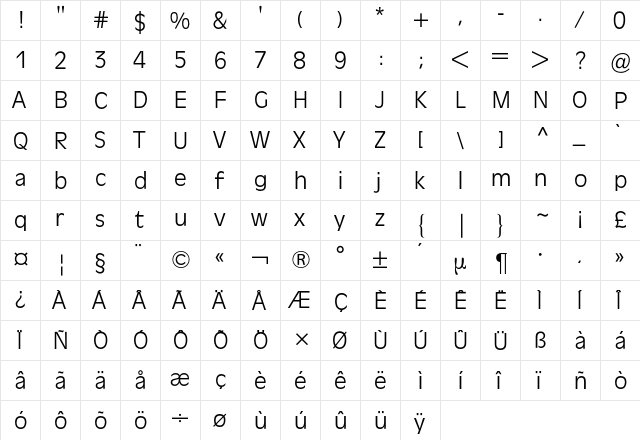
Antique Olive BQ Regular Font Preview
Antique Olive BQ Regular
Design Context for Antique Olive BQ Typeface
Antique Olive BQ wears its vintage influences proudly, with letterforms that recall mid-century signage, classic packaging, and nostalgia-driven design.
Perfect for vintage-inspired branding, retro packaging, nostalgia campaigns, and period-accurate editorial design.
Font Pairing: Combine Antique Olive BQ with a simple slab or neutral sans — period-accurate companions reinforce the vintage feel without competing for attention.
Pro Tip: Use Antique Olive BQ for headlines and pull quotes rather than body copy — its personality is best appreciated in short, focused bursts.